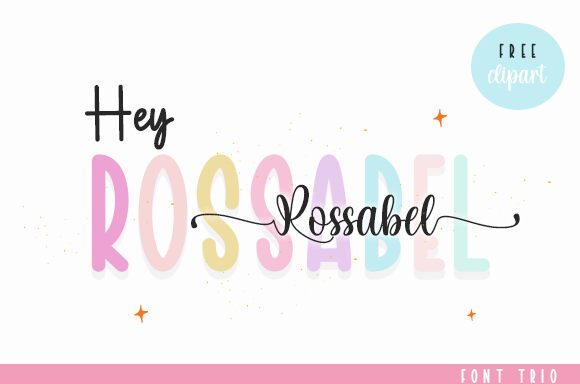
Rossabel Monoline is a light and delicate handwritten font created by Nopianti. It features an elegant monoline style that adds a hint of sophistication to any design. Its flowing lines and subtle curves give it a graceful and effortless beauty, making it the perfect choice for projects looking to evoke a sense of tranquility. Suitable for logos, wedding invitations, signage, quotes, and more!
Rossabel Monoline
Nopianti